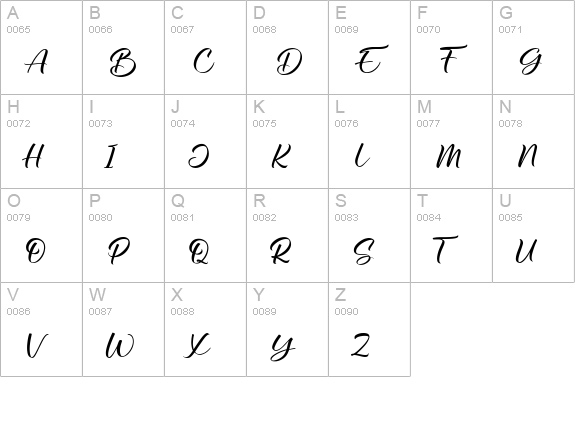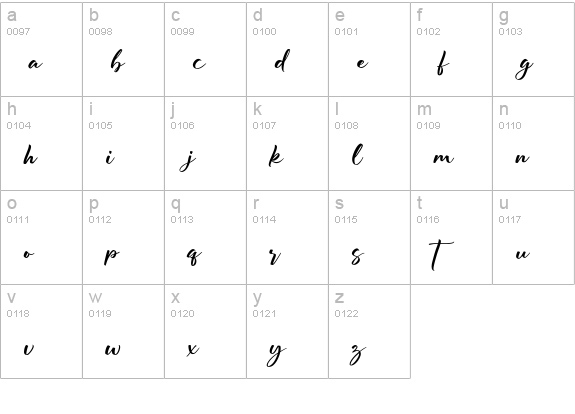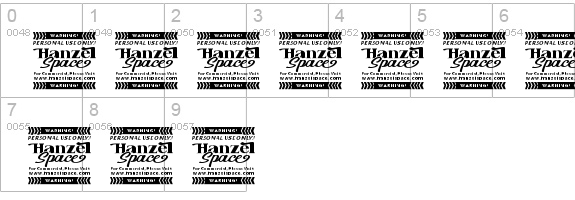
Berdiolla Handwritten Font Font Details
Berdiolla Handwritten Font is a free for personal use font in the Script > Handwritten category, designed by hanzel_space. It has been downloaded 34 times and is available for Windows, Mac and Linux.
Introducing Berdiolla Handwritten Font, a charming and elegant typeface that exudes a sense of creativity and personality. With its flowing lines and unique hand-drawn style, Berdiolla is perfect for adding a touch of sophistication to your projects. Whether you're designing invitations, branding materials, or social media graphics, this font will make your text stand out with its distinctive flair.